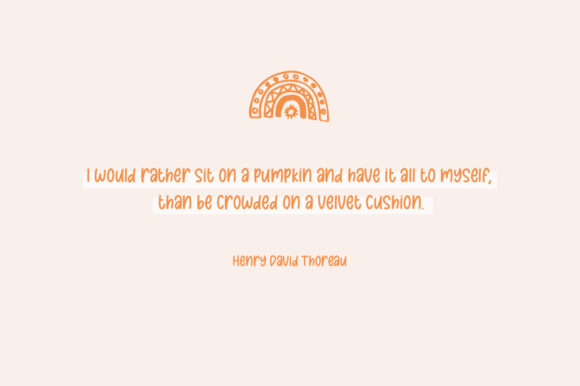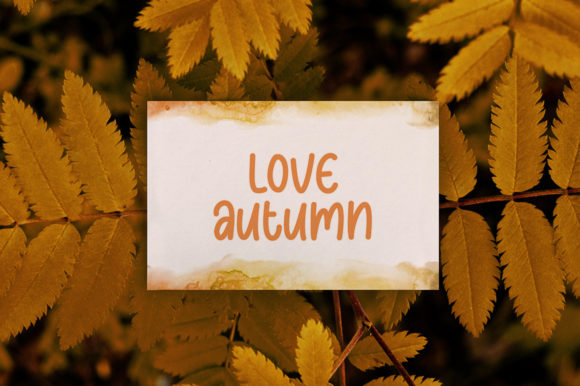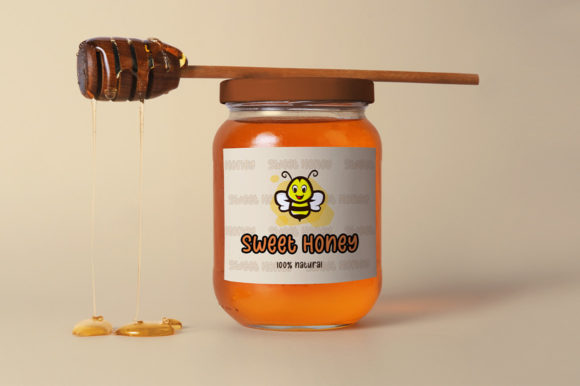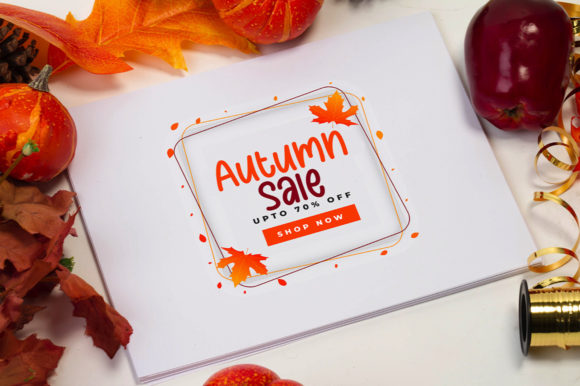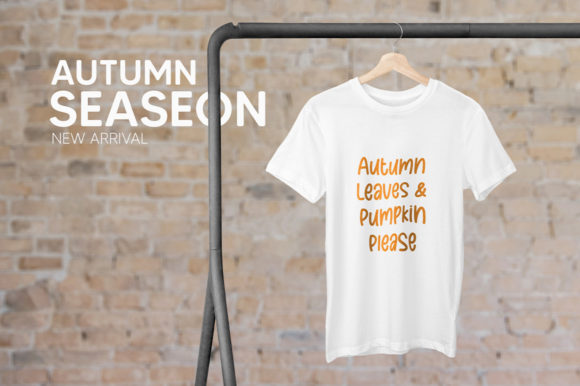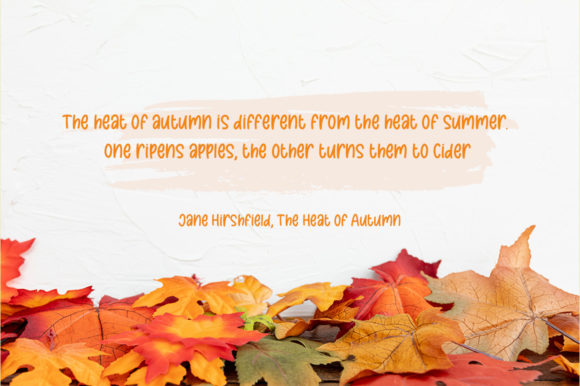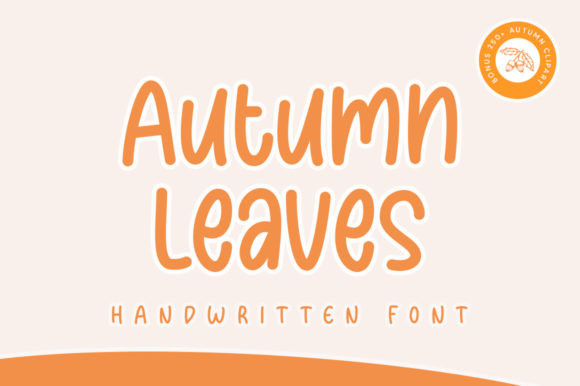
The Magic of Autumn Leaves Font: A Designer’s New Best Friend
I’ll never forget the time I was working on a project for a client’s fall-themed party invitation. I had all the design elements ready – the colors, the graphics, the overall aesthetic – but something was missing. It wasn’t until I stumbled upon the Autumn Leaves font that the entire design came together. There’s just something special about handwritten fonts that can add a personal touch to any project, and Autumn Leaves is no exception.
I’ve had the chance to work with Autumn Leaves font on several projects, and here’s what I think:
- ✨ It’s incredibly easy to read, even at smaller font sizes.
- ✅ The authentic, handwritten look is perfect for adding a personal touch to designs.
- 💕 It’s versatile – I’ve used it for everything from chalkboard quotes to teaching materials.
- ⚠️ The font doesn’t have a huge range of weights, so it can be a bit limiting if you want to create a dramatic effect.
- 🤔 Some of the letters can be a bit quirky – for example, the lowercase ‘q’ and ‘x’ have a slightly different feel to them.
- Don’t forget to explore the glyphs and stylistic alternates – Autumn Leaves has some beautiful swashes and flourishes that can add a lot of personality to your design.
The Story Behind Autumn Leaves Font
Autumn Leaves font was designed with the intention of capturing the warm, cozy feeling of fall. The designer wanted to create a font that felt like a handwritten note or a chalkboard quote – something that would add a personal touch to any project. With its authentic, handwritten look and versatile design, it’s no wonder Autumn Leaves has become a favorite among designers and crafters.
- Q: Does Autumn Leaves font come with a lot of special features?
- A: Yes! Autumn Leaves font includes a range of OpenType features, including glyphs, stylistic alternates, and swashes.
- Q: Is Autumn Leaves font easy to read?
- A: Absolutely! Autumn Leaves font is designed to be easy to read, even at smaller font sizes.